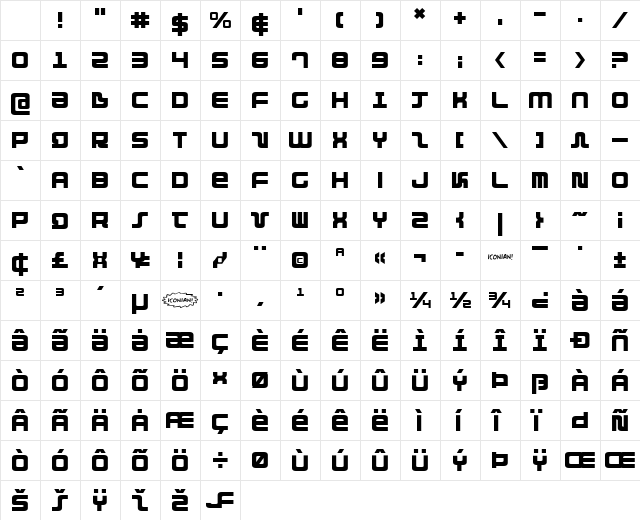
Complete Direktor Regular glyph index. Displaying only characters natively supported by Direktor Regular font.
Direktor is a composed and adaptable typeface that performs quietly and consistently across a wide range of design contexts.